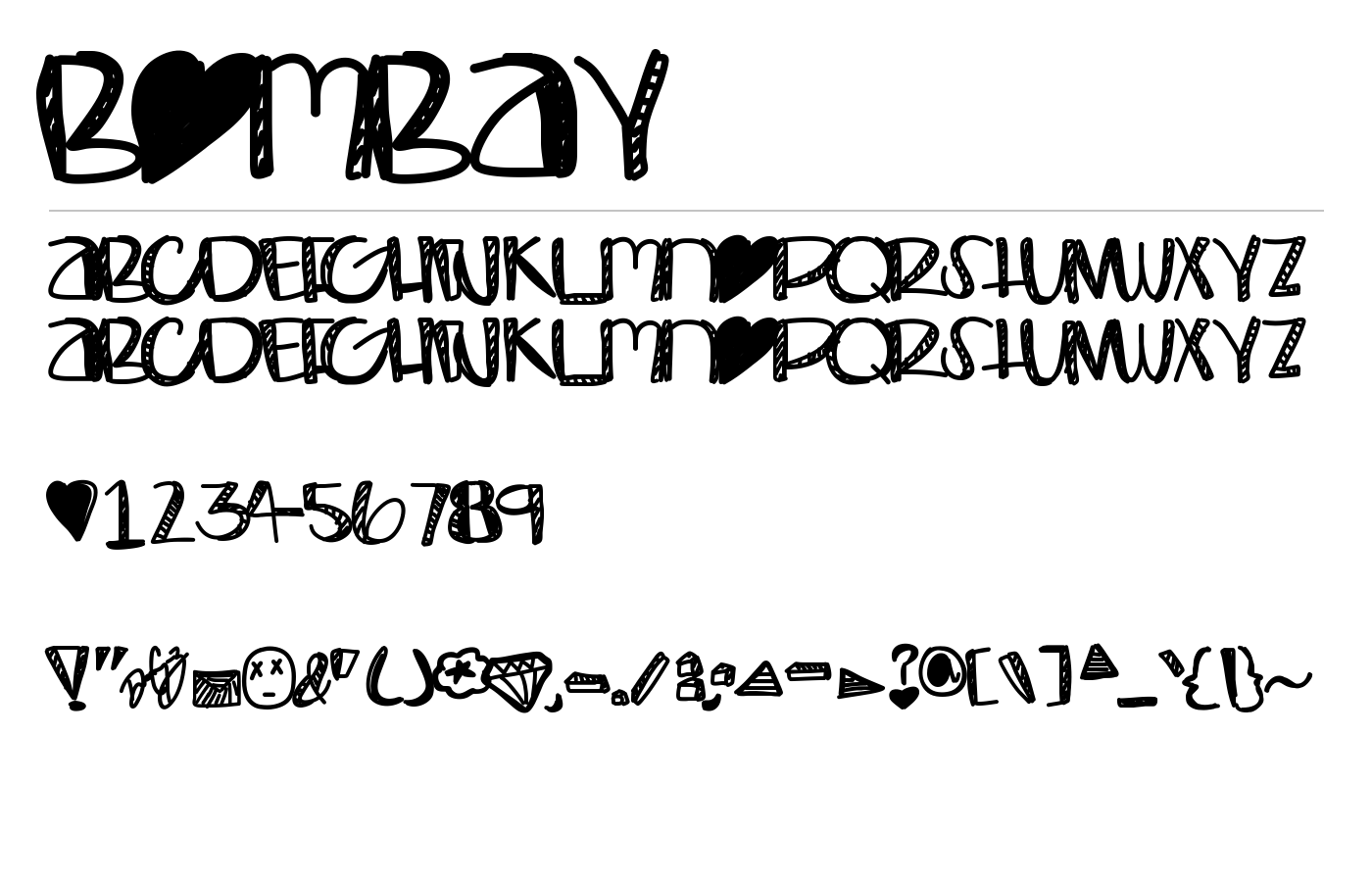
Bombay is a playful and quirky handwritten font featuring irregular, bold strokes with unique decorative elements like heart shapes and textured fills. Its casual and artistic style makes it perfect for fun, creative projects such as greeting cards, children's designs, or informal branding where a lively, personal touch is desired. This font stands out with its distinctive character shapes and energetic vibe, adding charm and whimsy to any design.
Bombay Font
About Bombay Font